Sci-fi fonts can be portals to other worlds, other times, and other possibilities. I’ve watched clients’ eyes light up when they see their brand transformed with the perfect futuristic typeface, and I’ve seen how the right sci-fi font can make a design feel like it belongs in the next century rather than yesterday’s newspaper.
In this comprehensive guide, we’ll explore the fascinating universe of sci-fi fonts, from sleek minimalist designs that whisper of advanced AI to bold, angular typefaces that scream intergalactic warfare. Whether you’re designing for a tech company, creating promotional materials for a sci-fi convention, or just want to add some futuristic flair to your personal projects, this guide has everything you need.
38 Best Sci-Fi Fonts in 2026
Centauri
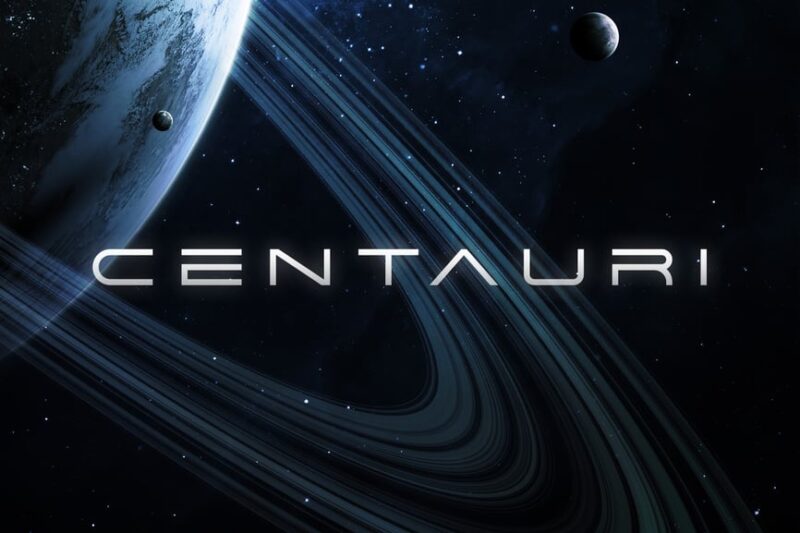
Centauri is a futuristic sans-serif font with a decorative flair, perfect for sci-fi themed designs. Its sleek lines and modern aesthetic make it ideal for creating eye-catching headlines and logos in tech-forward or space-oriented projects.
Futurion
Futurion is a cutting-edge sans-serif typeface that embodies the essence of science fiction. With its clean lines and modern feel, this font is perfect for creating futuristic designs, tech branding, and forward-thinking visual identities.
Man of Space
Man of Space is a bold, decorative font that captures the excitement of space exploration. Its unique letterforms and futuristic design make it an excellent choice for titles, posters, and branding in sci-fi or space-themed projects.
Space Armada
Space Armada is a sans-serif retro font that blends retro and futuristic elements. Its clean lines with subtle vintage touches make it versatile for both modern sci-fi designs and projects aiming for a nostalgic future aesthetic.
Astrobia
Astrobia is an excellent futuristic sans-serif font that exudes a sense of advanced technology and space exploration while also giving greek or aztec vibes. Its sleek design and sharp edges make it perfect for creating impactful headlines and logos in sci-fi or tech-oriented projects.
Komiter
Komiter is a futuristic sans-serif font with decorative elements that give it a unique, modern flair. Its bold shapes and clean lines make it ideal for creating striking titles and logos in contemporary sci-fi or tech-focused designs.
Aerospace
Aerospace is a modern sci-fi font that combines sans-serif simplicity with decorative elements and unique symbols. Its versatile design makes it suitable for a wide range of projects, from futuristic branding to tech-oriented publications and interfaces.
Casiopeia
Casiopeia is a futuristic sans-serif font with decorative touches that evoke a sense of advanced technology. Its sleek design and subtle tech-inspired details make it perfect for creating sophisticated, forward-looking designs in various digital and print media.
Science
Science is a decorative futuristic font that embodies the spirit of scientific discovery and innovation. Its unique letterforms and stylistic elements make it an excellent choice for creating attention-grabbing headlines and titles in science-themed or tech-forward designs.
Planet Adventure
Planet Adventure is a sci-fi futuristic font with a decorative flair that evokes a sense of digital technology and space exploration. Its unique design makes it perfect for creating eye-catching titles and logos in tech-oriented or space-themed projects.
Blastage
Blastage is a sci-fi techno game expanded sans-serif font that exudes a futuristic and high-tech feel. Its bold, expanded letterforms make it ideal for creating impactful titles and user interfaces in video games, tech products, or futuristic designs.
Sci Fi Bronze
Sci Fi Bronze is a modern and futuristic font that combines decorative elements with a sans-serif base. Its unique design, reminiscent of metallic textures, makes it perfect for creating distinctive branding and logos in tech or sci-fi themed projects.
Effort
Effort is a modern font that blends current aesthetics with scientific inspiration. Its unique letterforms and clean lines make it suitable for creating striking headlines and logos in projects related to technology, science, or futuristic themes.
Space Boards
Space Boards is a sci-fi logo font with a sans-serif style that’s perfect for futuristic branding. Its sleek design and space-inspired aesthetics make it ideal for creating memorable logos and titles in tech companies, space-themed projects, or sci-fi media.
Remember, the best sci-fi fonts don’t just look like they come from the future – they help create that future by inspiring us to imagine new possibilities. So go ahead, choose that bold geometric typeface, experiment with those glitch effects, and help design tomorrow’s visual landscape.
After all, in a world where technology continues to evolve at breakneck speed, shouldn’t our typography keep pace? The future is waiting, and it needs the perfect font to introduce itself.